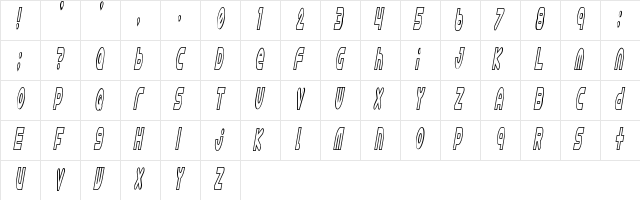
Astro 869 Regular Font Preview
Astro 869 Regular
Design Context for Astro 869 Typeface
Astro 869 is a composed and adaptable typeface that performs quietly and consistently across a wide range of design contexts.
Pro Tip: Use Astro 869 in both headline and body roles to test its range before committing to a single application.